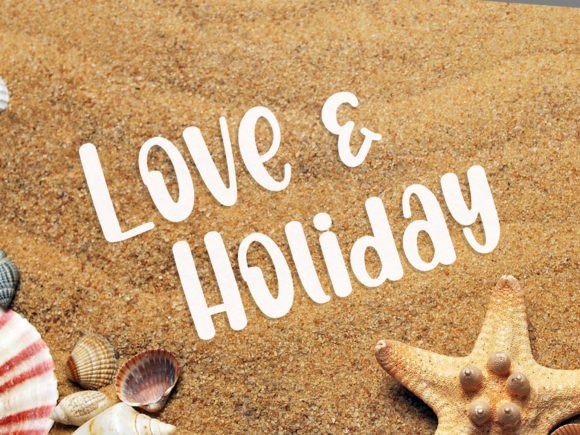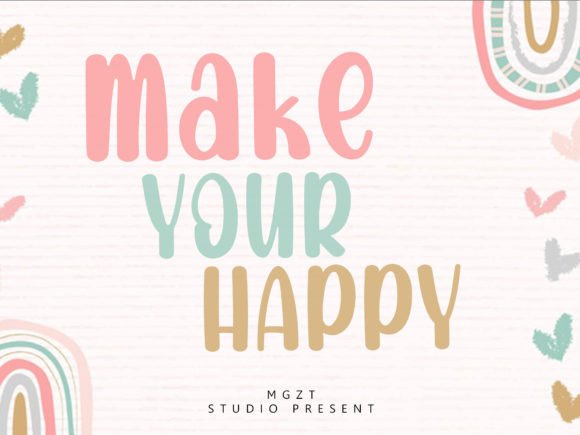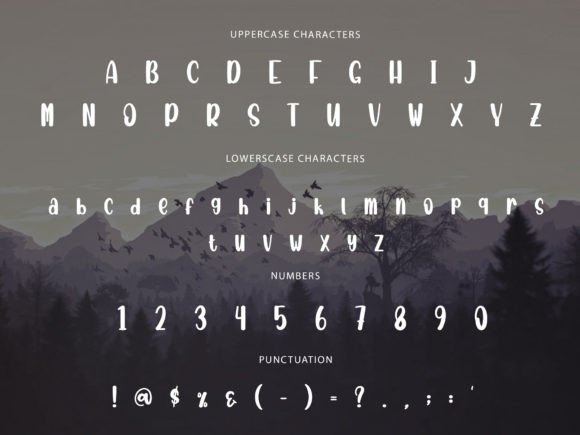
Introduction to La Jirafe Font
As a designer, have you ever found yourself searching for the perfect font to capture the essence of your creative project? Perhaps you’re working on a children’s book, a playful branding campaign, or a fun illustration – whatever the case, the right font can make all the difference. And that’s where La Jirafe Font comes in – a delightful, endearing typeface that’s sure to bring a smile to your viewer’s face.
La Jirafe Font is more than just a pretty face; it’s a high-quality design resource that offers a clean, minimalist aesthetic and a transparent background that makes it perfect for any creative endeavor. With its tall, slender letters and straightforward design, La Jirafe Font is a free download that’s sure to become a valuable addition to your design arsenal.
Key Features of La Jirafe Font
- Unique, hand-drawn design elements that add a personal touch to any project
Honest Review: La Jirafe Font
I recently had the chance to work with the La Jirafe Font, and I must say, it’s a great addition to any designer’s toolkit. This font is a high-quality design resource that’s perfect for creative projects.
- High-quality design with a modern aesthetic
- Transparent background, allowing for easy background substitution
- Some users may find the font’s style too minimalist
Overall, I’m impressed with the La Jirafe Font. It’s a solid choice for designers looking for a high-quality, free design resource for their creative projects. With its modern aesthetic and transparent background, it’s easy to see why this font has gained popularity in the design community.
How to Use La Jirafe Font
La Jirafe Font is a high-quality, free download design resource ideal for creative projects. Its unique and stylish design makes it a popular choice among designers and artists.
Tips for Getting the Most Out of La Jirafe Font
To get the most out of La Jirafe Font, use it in combination with a transparent background to create a modern and sleek design. You can also experiment with different font sizes and styles to add visual interest to your project.
La Jirafe Font is commonly used in creative projects such as logos, business cards, and social media graphics. Its unique design and high-quality look make it a popular choice among designers and artists.